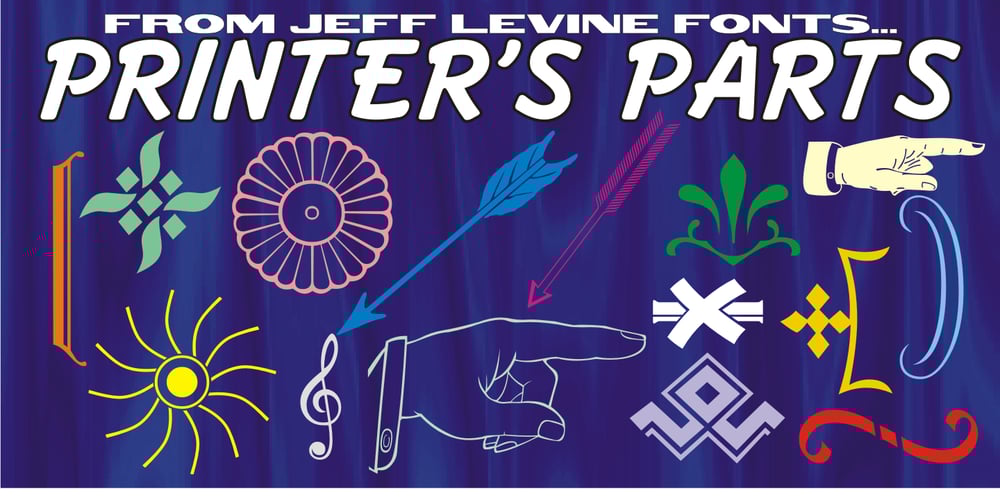
Printers Parts JNL
Printers Parts JNL font
Printers Parts JNL Font Family was designed by Jeff Levine and published by Jeff Levine. Printers Parts JNL contains 1 styles and family package options. The thirty images contained in Printers Parts JNL are another assortment of wonderful dingbats from various vintage sources. Brackets, ornaments, end caps, arrows, pointing hands and advertising phrases are part of the wide and various choices and styles found within this font.